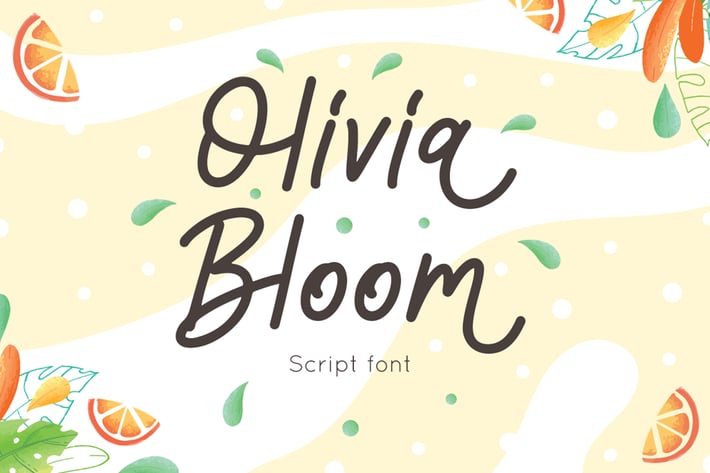
Olivia Bloom - Summer Font
Attype-Studio
Olivia Bloom is a Summer font monoline style, combine with alternates to make spectacular design
Olivia Bloom is perfect for summer event, summer party, branding, logo, invitation, quotes, apparel design, product packaging, merchandise, game titles, cute style design, Book/Cover Title and more.